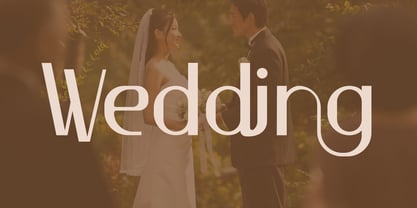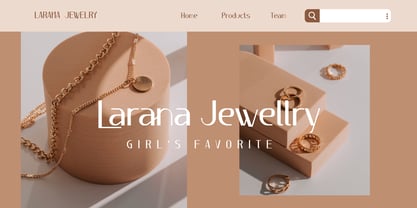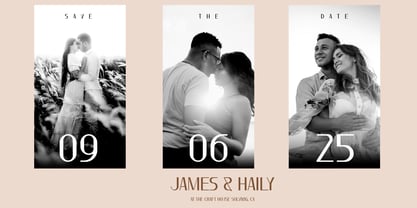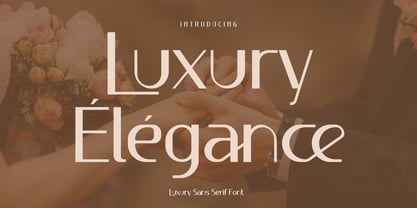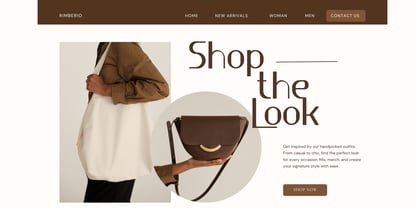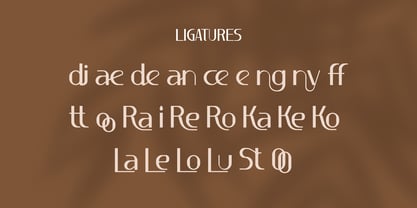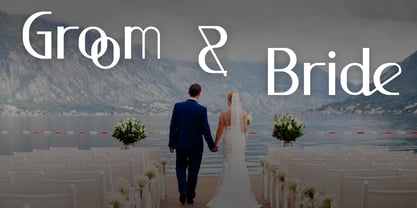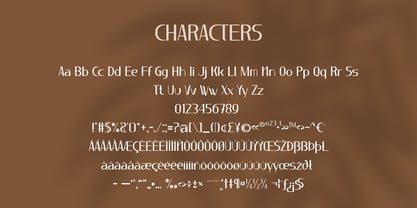
Luxury Elegance
by Brown Cupple Typeface
The Luxury Elegance Font Family was designed by Nattha​ Potchanad​ and published by Brown Cupple Typeface. Luxury Elegance contains 1 styles. More about this family
Luxury Élégance is a Luxury Sans Serif Font. It embodies playfulness and authenticity while maintaining a refined, modern aesthetic. Designed with clean lines and balanced proportions, it delivers a timeless look that feels both elegant and versatile. This font is perfect for a wide range of creative projects, including blog posts, logos, branding, advertisements, invitations, greeting cards, planners, photo albums, and decorative designs. Whether you’re creating a sophisticated brand identity or a stylish social media layout, Luxury Élégance adapts effortlessly to your vision. With its smooth curves and minimalist structure, it ensures excellent readability while preserving a distinctive, high-end appearance. It works beautifully in both headlines and body text, making it a reliable choice for designers who seek both function and style. Add it to any of your designs and elevate your work with a touch of modern luxury.
Designers: Nattha​ Potchanad​
Foundry: Brown Cupple Typeface